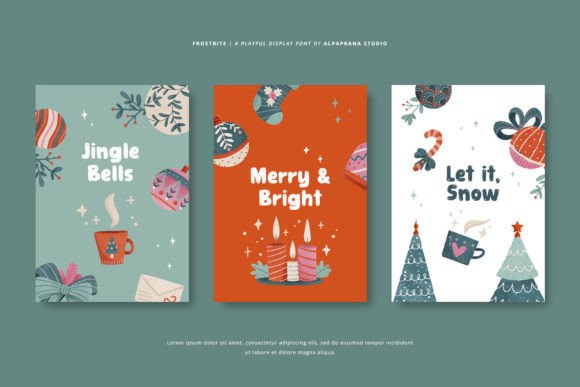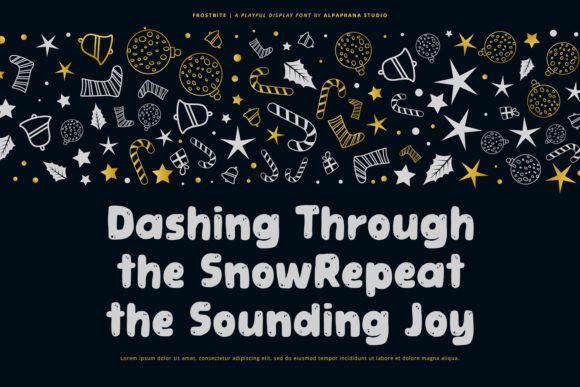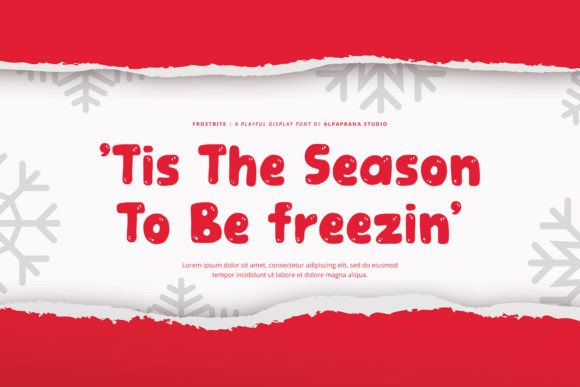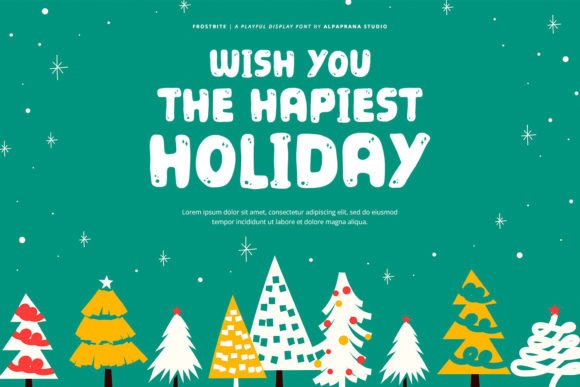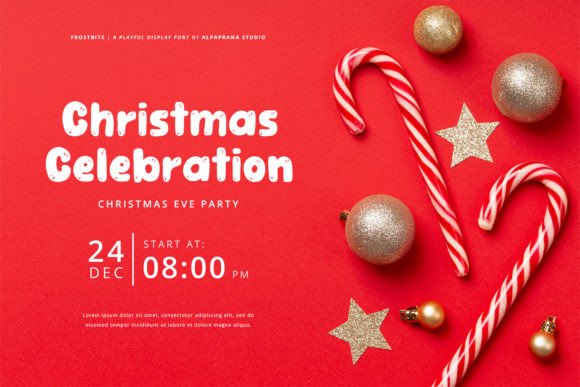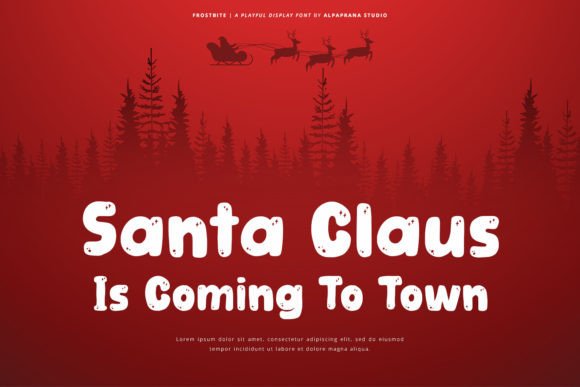
Frostbite Font: The Perfect Choice for Kids’ Projects and Designs
Are you looking for a font that can add a touch of playfulness and authenticity to your designs? Look no further than the Frostbite Font! This cute and colorful display font is perfect for any children’s activity or school project. In this article, we’ll take a closer look at the Frostbite Font, its features, and how you can use it to bring your designs to life.
What is Frostbite Font?
Frostbite Font is a chunky lettered font that is designed to be fun, playful, and eye-catching. It’s a display font that is perfect for headlines, titles, and any other design element that needs to make a statement. The font features bold, rounded letters with a colorful and frosty effect that gives it a unique and playful look.
Key Features of Frostbite Font
- Cute and Colorful: Frostbite Font features a bright and colorful design that is sure to grab attention.
- Chunky Lettering: The font has a chunky, bold lettering style that makes it perfect for display purposes.
- Playful and Authentic: Frostbite Font embodies playfulness and authenticity, making it perfect for kids’ projects and designs.
- Easy to Read: Despite its bold and chunky design, Frostbite Font is easy to read, even at small sizes.
How to Use Frostbite Font in Your Designs
Frostbite Font is a versatile font that can be used in a variety of designs, from kids’ activity sheets to school projects, posters, and more. Here are a few ideas for using Frostbite Font in your designs:
- Kids’ Activity Sheets: Use Frostbite Font to create fun and engaging kids’ activity sheets, such as coloring pages, word searches, and more.
- School Projects: Add a touch of personality to school projects, such as posters, presentations, and reports, with Frostbite Font.
- Posters and Flyers: Use Frostbite Font to create eye-catching posters and flyers for kids’ events, such as birthday parties, school plays, and more.
- Digital Designs: Frostbite Font can also be used in digital designs, such as social media graphics, blog posts, and more.
Why Choose Frostbite Font?
There are many fonts to choose from, but Frostbite Font stands out for its unique and playful design. Here are a few reasons why you should choose Frostbite Font for your next design project:
- Unique Design: Frostbite Font has a unique and colorful design that will make your designs stand out.
- Versatile: Frostbite Font can be used in a variety of designs, from kids’ activity sheets to posters and more.
- Fun and Playful: Frostbite Font embodies fun and playfulness, making it perfect for kids’ projects and designs.
Tips for Using Frostbite Font Effectively
Here are a few tips for using Frostbite Font effectively in your designs:
- Use it for Headlines: Frostbite Font is perfect for headlines and titles, so use it to grab attention.
- Pair it with Other Fonts: Frostbite Font can be paired with other fonts to create a unique and interesting design.
- Experiment with Colors: Frostbite Font comes in a variety of colors, so experiment with different colors to find the one that works best for your design.
- Keep it Simple: Don’t overcomplicate your design – keep it simple and use Frostbite Font to add a touch of personality.
Frostbite Font is a cute and colorful display font that is perfect for kids’ projects and designs. Its chunky lettering and playful design make it a great choice for adding a touch of personality to your designs. With its ease of use, versatility, and unique design, Frostbite Font is a great addition to any designer’s toolkit. So why not give it a try and see how it can bring your designs to life?